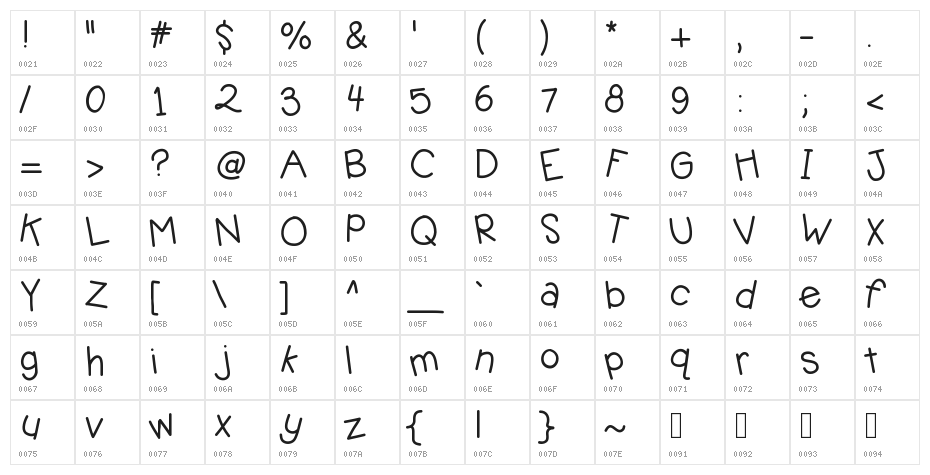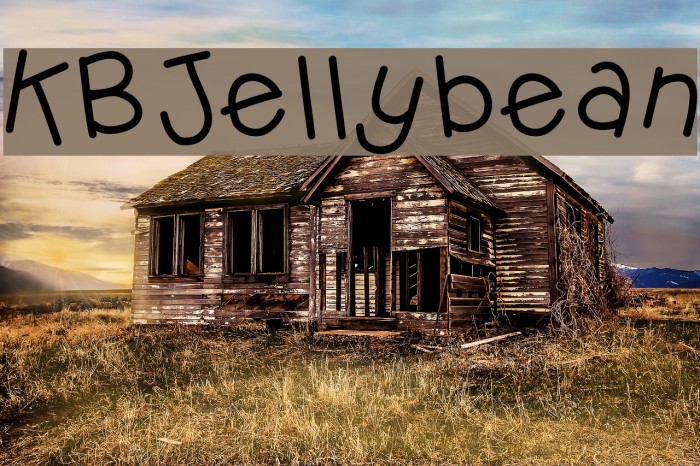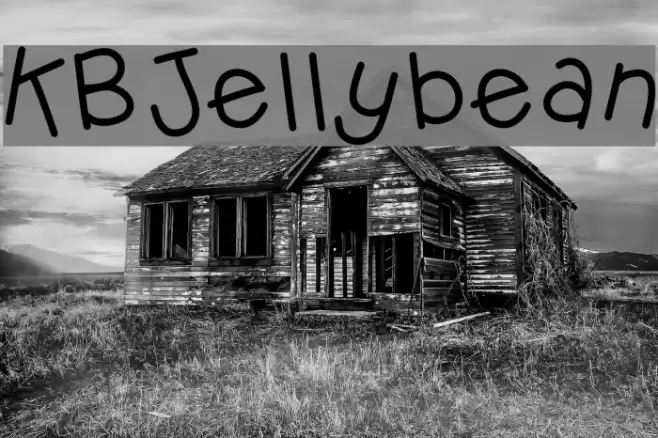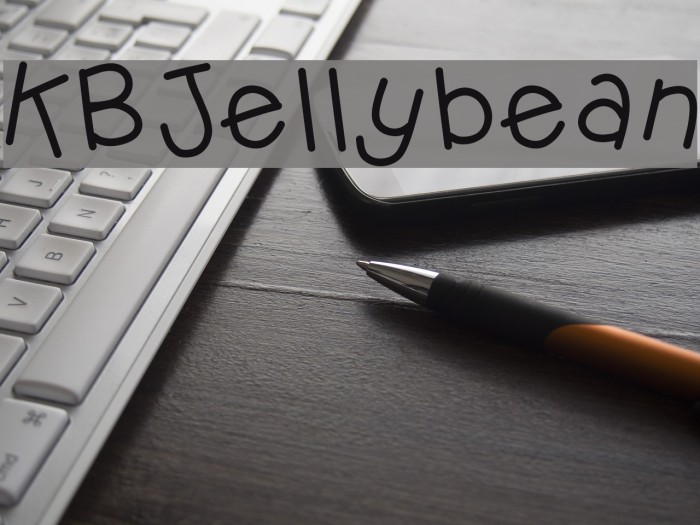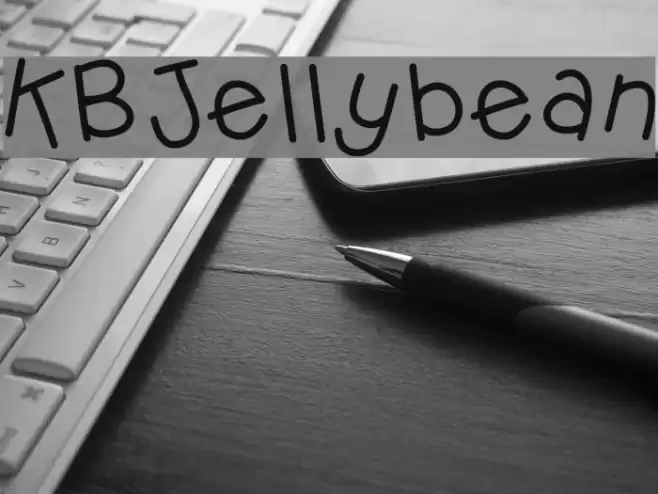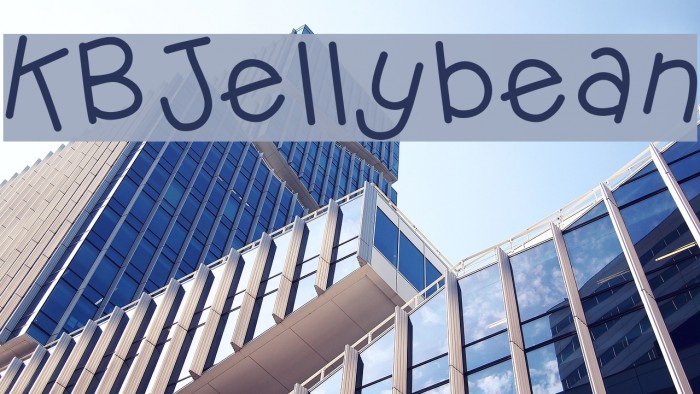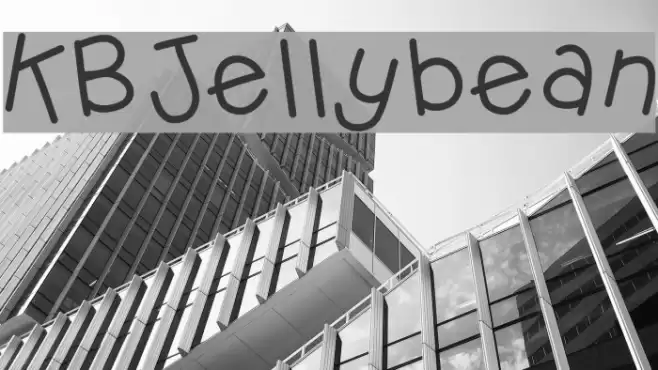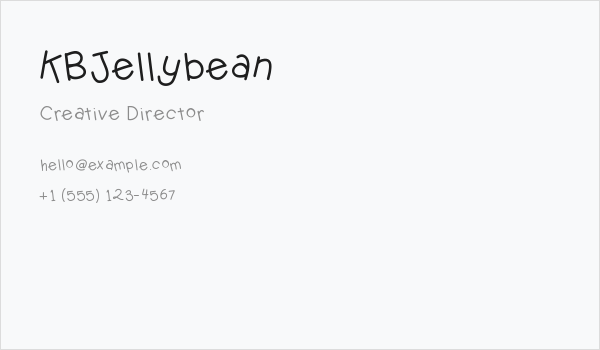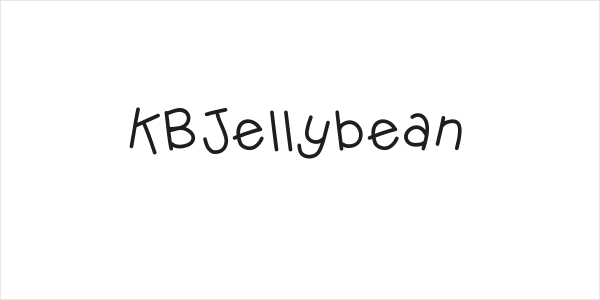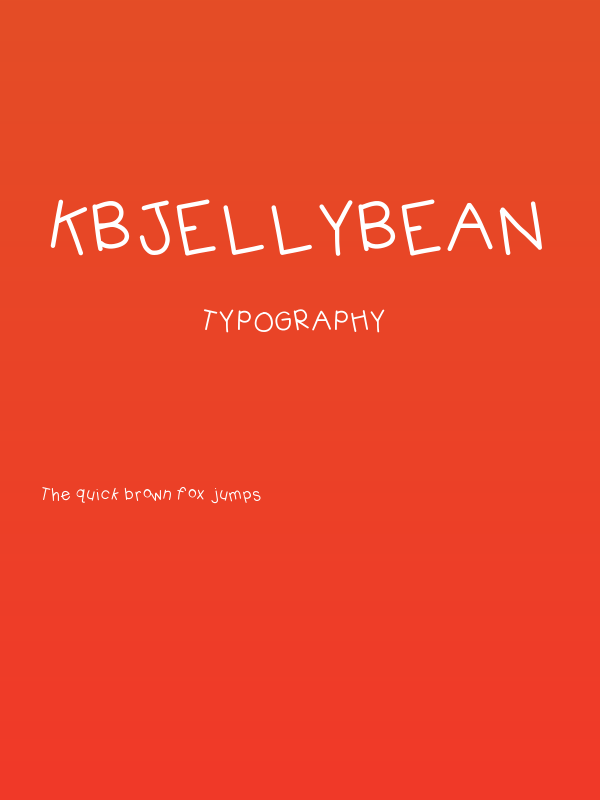
KBJellybean Font
KBJellybean Description
This playful and whimsical font features a handwritten style with rounded edges and a casual, friendly appearance. The characters are slightly irregular, adding to the charm and informal feel. The uppercase and lowercase letters maintain a consistent style, with a slight tilt that gives a dynamic and lively look. The numbers and special characters follow the same playful design, making it suitable for creative projects. The overall appearance is approachable and fun, perfect for projects that aim to convey a sense of joy and creativity.
| Overall Style | Playful, Casual |
| Proposed Projects | Ideal for children's books, greeting cards, playful branding, and informal invitations. |